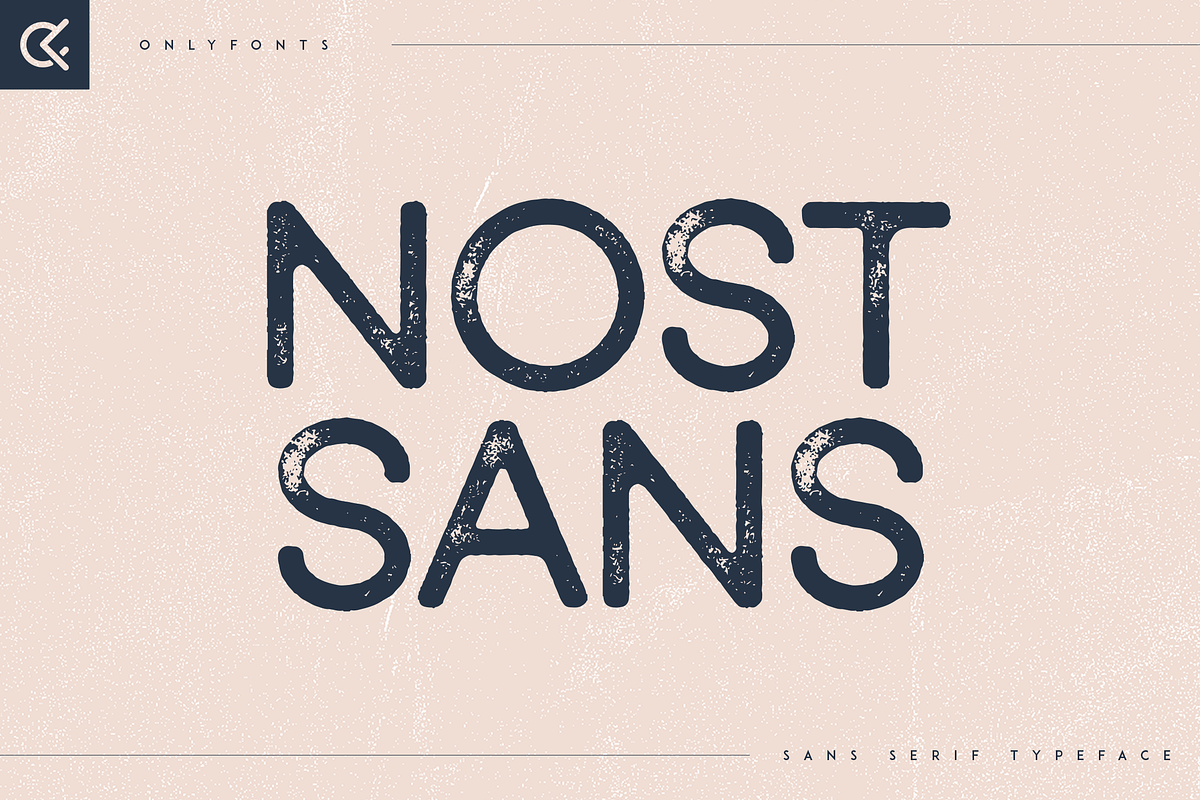
The Nost Sans Typeface - 4 Styles Free Download is a clean, modern font family that offers versatility and style for a variety of design projects. With four different styles to choose from, this typeface is perfect for everything from logos and branding to websites and editorial designs. Its sleek, sans-serif design ensures readability and sophistication, making it a great choice for both professional and creative projects. Please note, for commercial use, a license purchase is required. However, you can easily download the Nost Sans Typeface - 4 Styles Free Download for free for personal use and explore its wide range of applications. Whether you're designing for digital or print media, this font family will add a contemporary and polished touch to your work. Download the Nost Sans Typeface - 4 Styles Free Download today and elevate your designs with clean, modern typography.